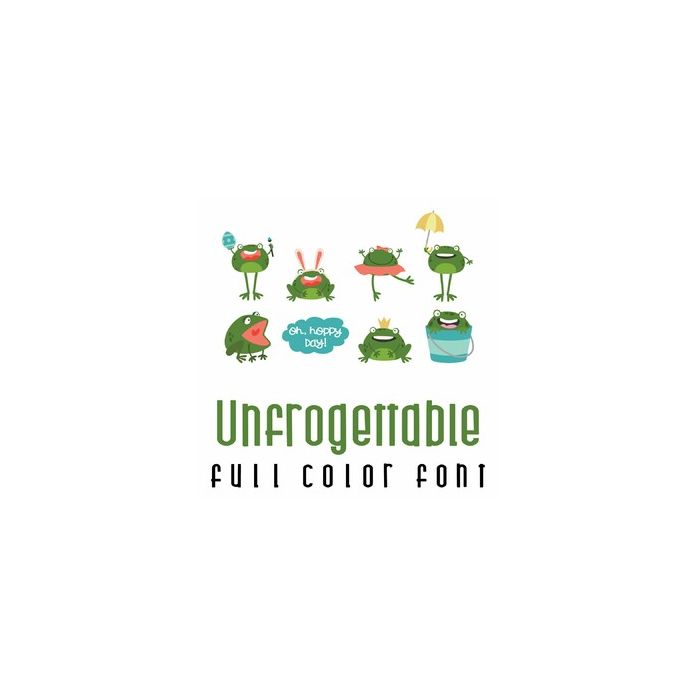
This adorable full-color doodlebat font features 26 adorable frogs ready for Easter and Spring. Perfect for cards, crafts, gifts, decor, scrapbook pages, planner stickers, and more!